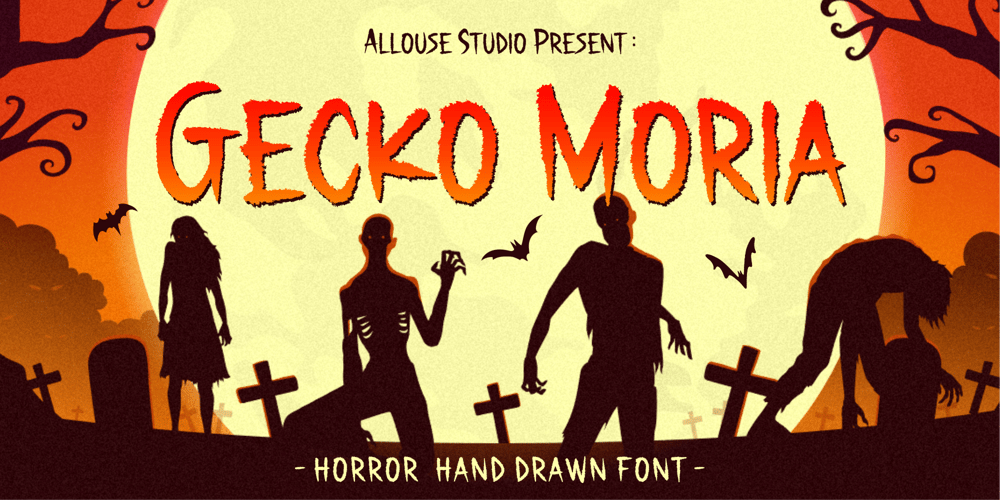
Gecko Moria Font Family was designed by Fachrizal Yusuf and published by Allouse Studio. Gecko Moria contains 1 styles and family package options. Proudly Presenting, Gecko Moria a Horror Handdrawn Font.Gecko Moria is perfect for any titles, logo, product packaging, branding project, megazine, social media, or just used to express words above the background.Gecko Moria also come with Multi-Lingual Support.Enjoy the font, feel free to comment or feedback, send me PM or email. Thank You!